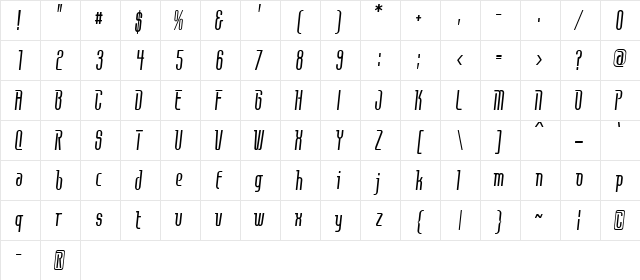
Contact Light
Design Context for Contact Typeface
Contact offers clean, dependable letterforms without strong stylistic allegiance, making it a practical choice for designers who need flexibility. Its slender proportions lend an understated elegance to any composition.